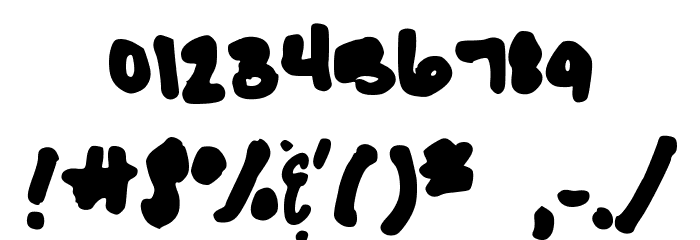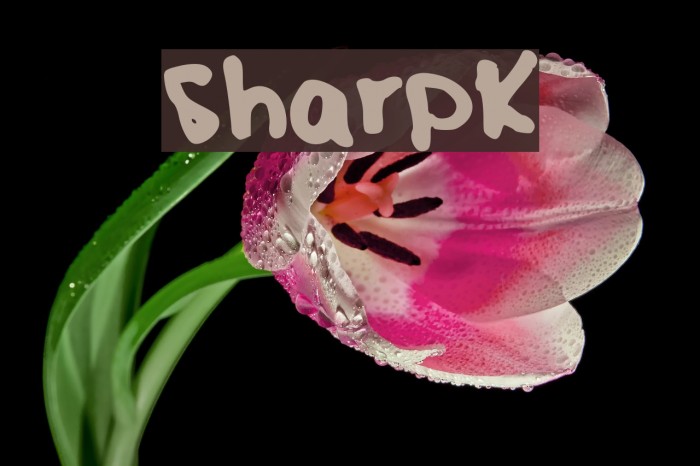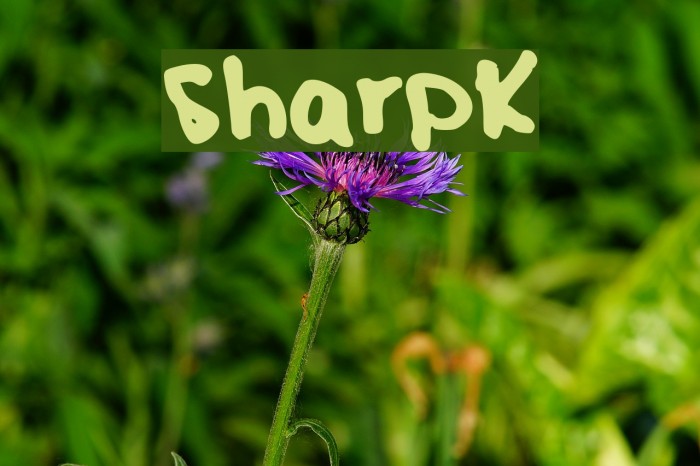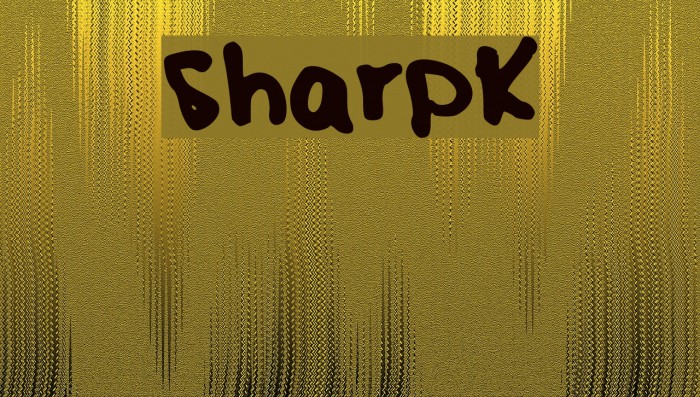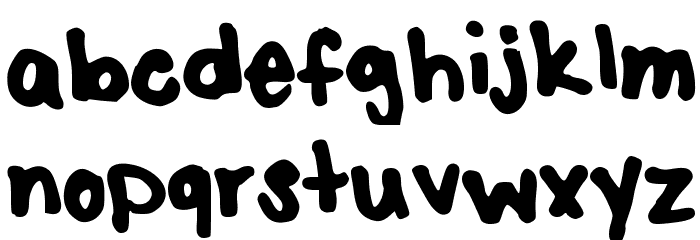
SharpK Font
SharpK Description
This font features a playful and bold design with a hand-drawn aesthetic. The characters are rounded and slightly irregular, giving them a whimsical and informal appearance. The strokes are thick and consistent, creating a strong visual impact. The uppercase and lowercase letters maintain a cohesive style, while the numbers and special characters blend seamlessly with the overall design. This font's unique style makes it stand out, perfect for projects that require a touch of creativity and fun.
| Proposed Projects | Ideal for children's books, comic strips, playful branding, and creative posters. |